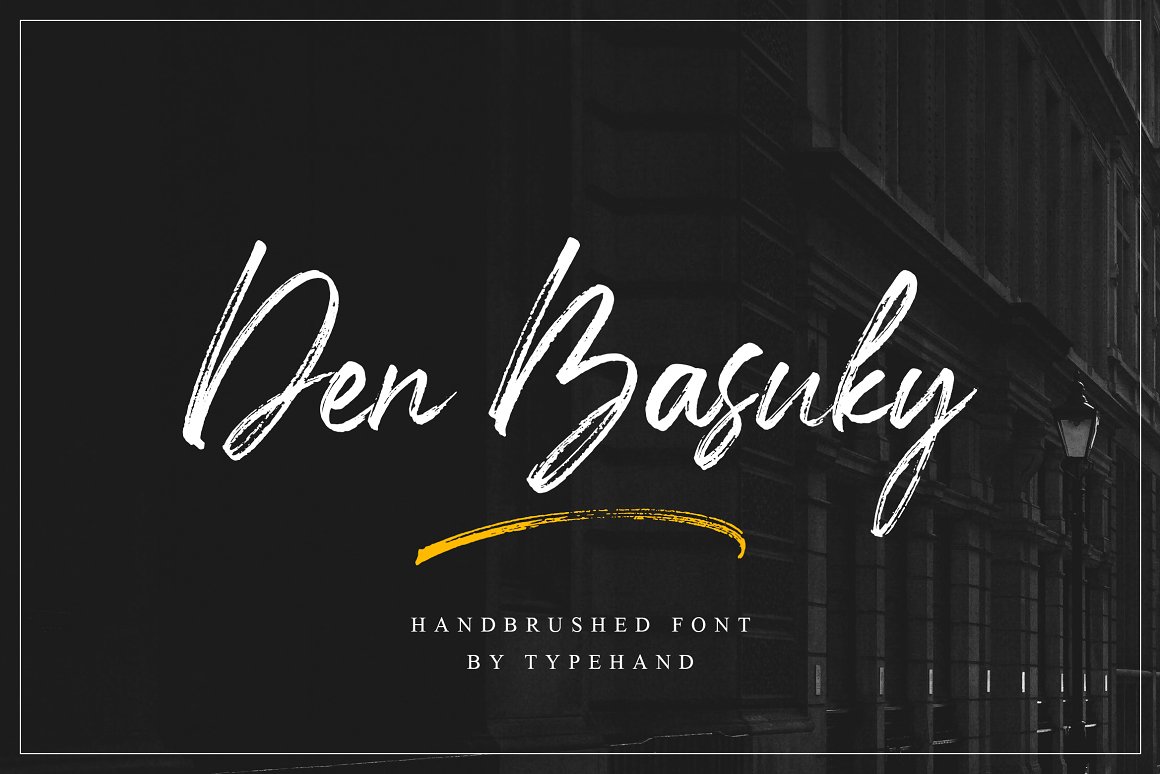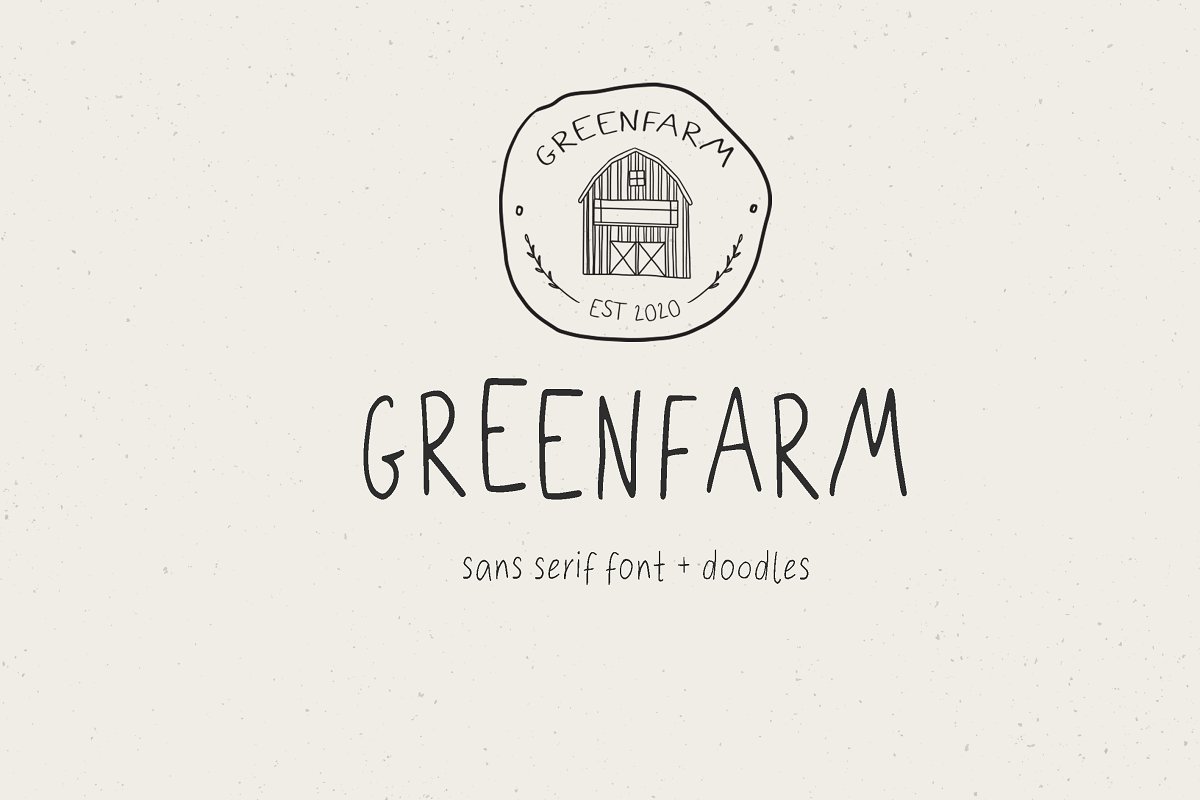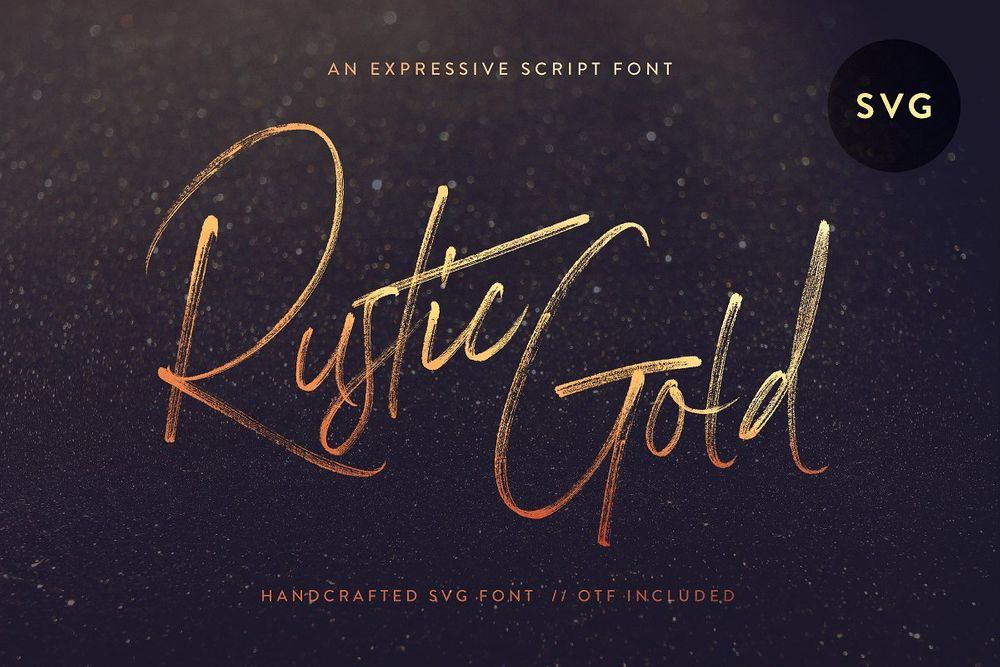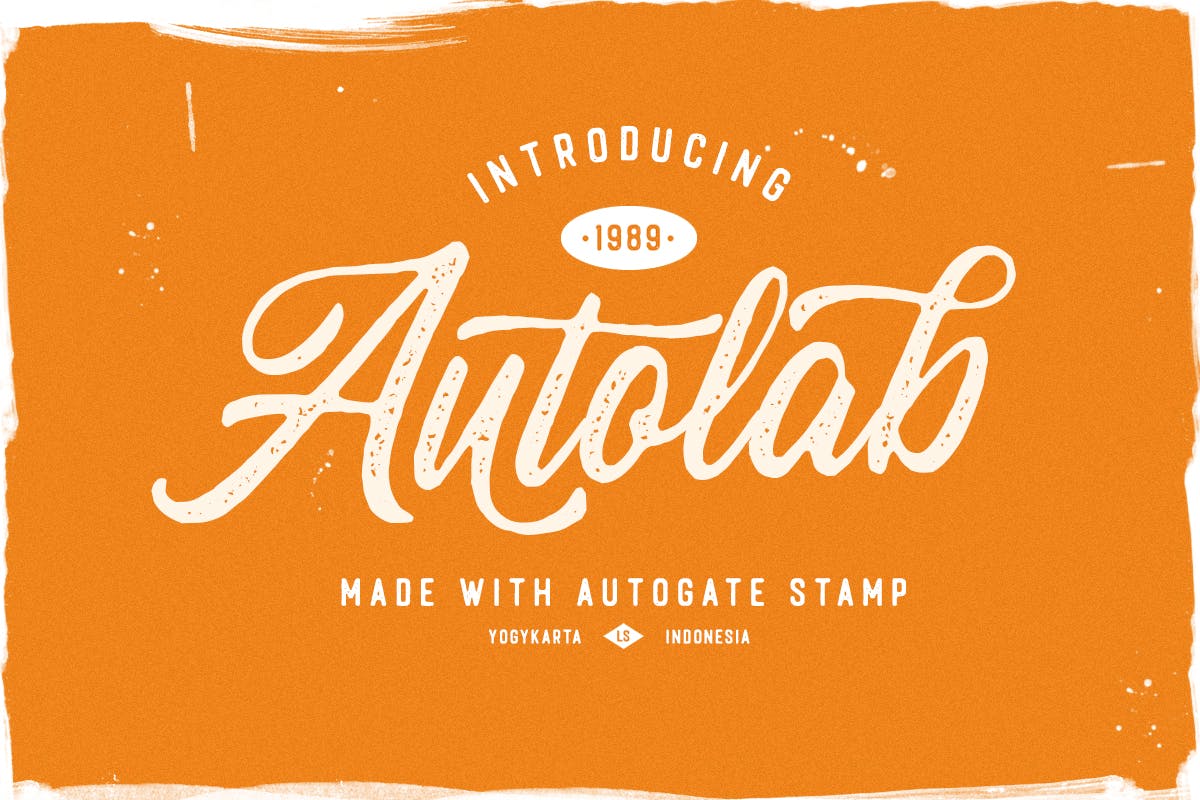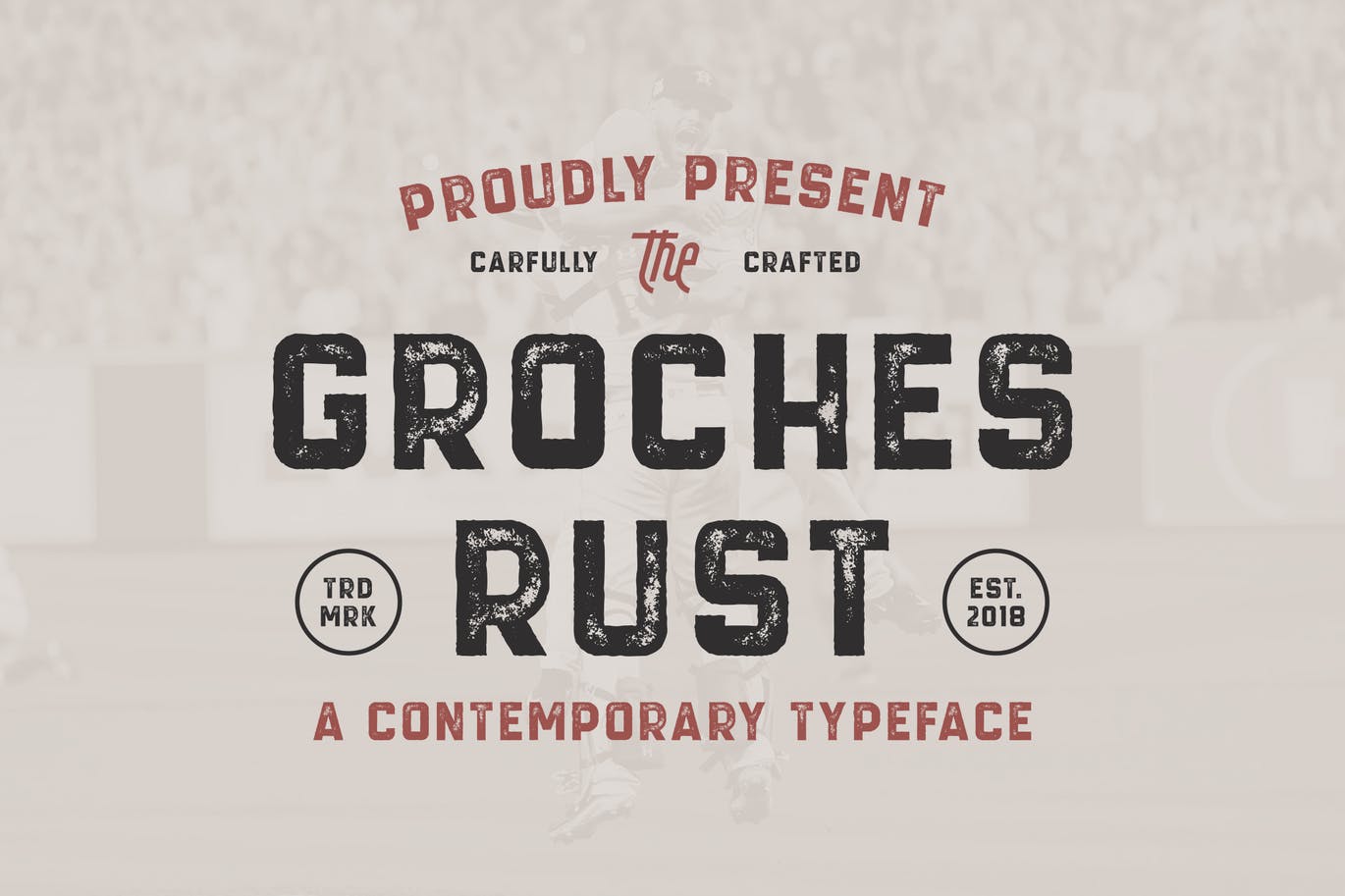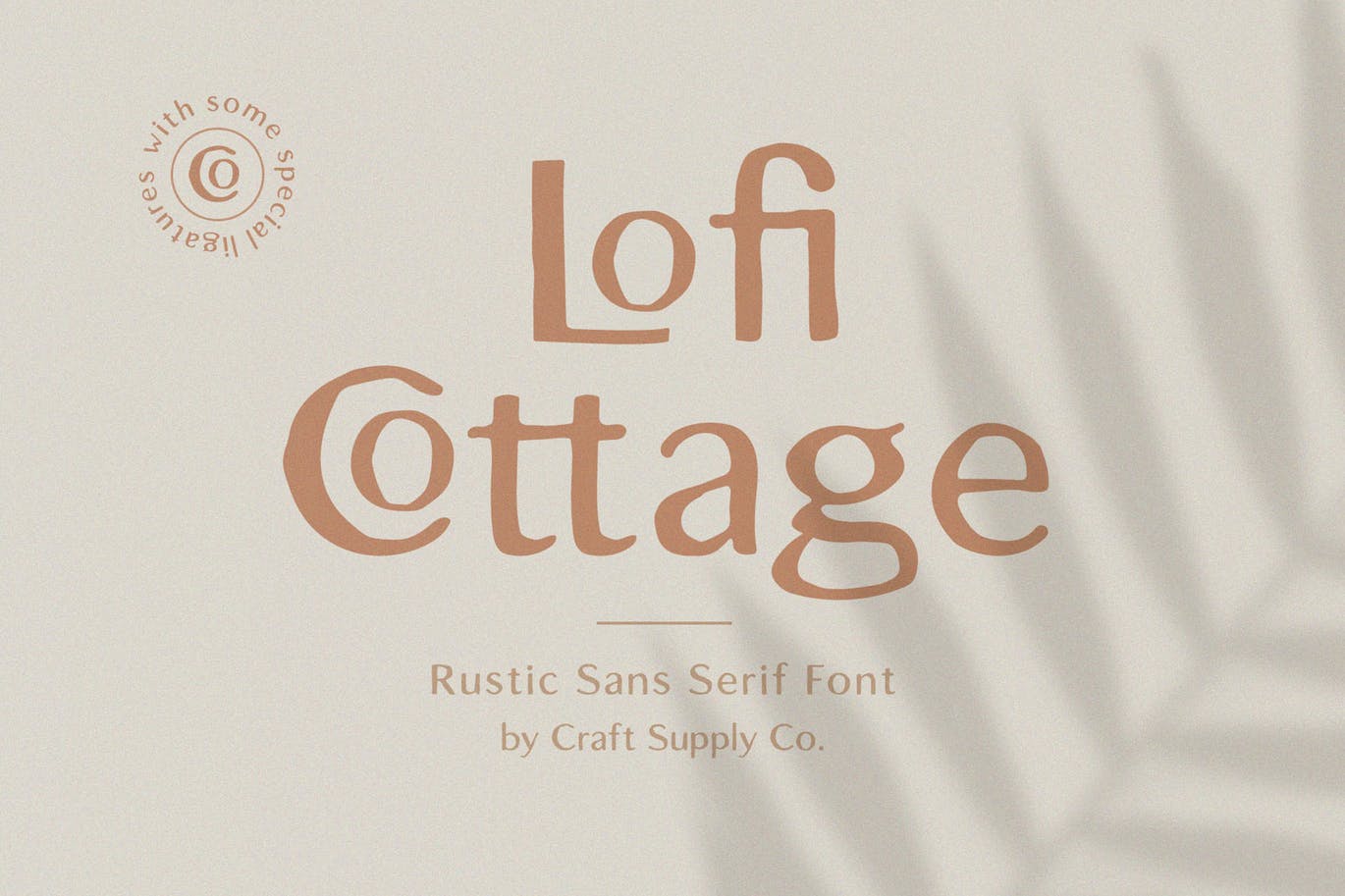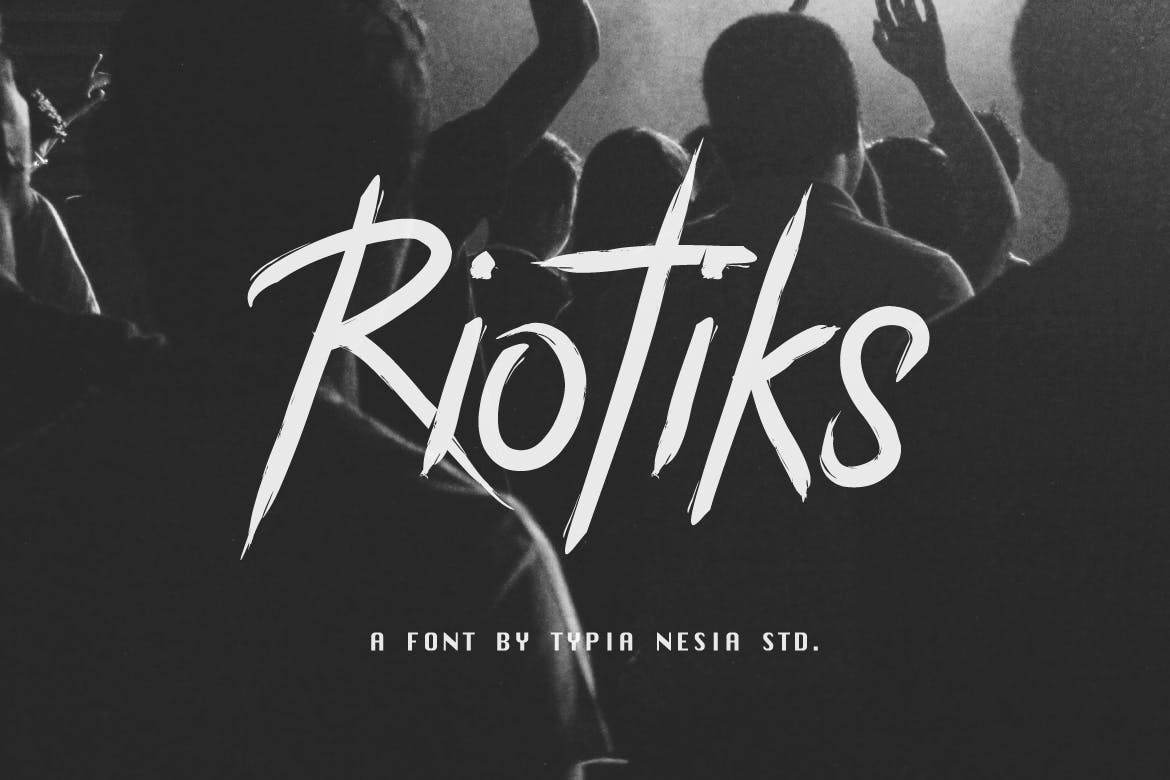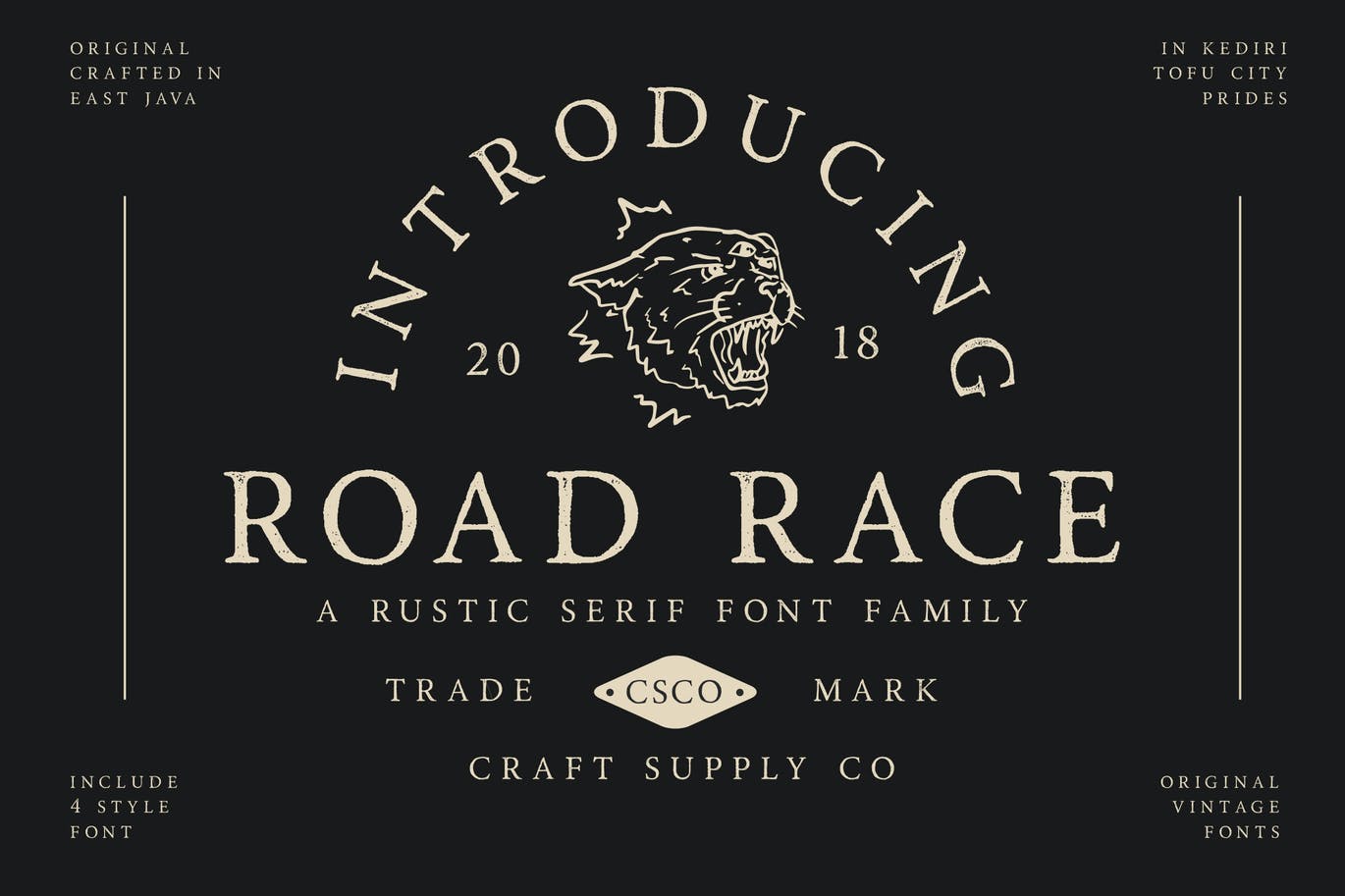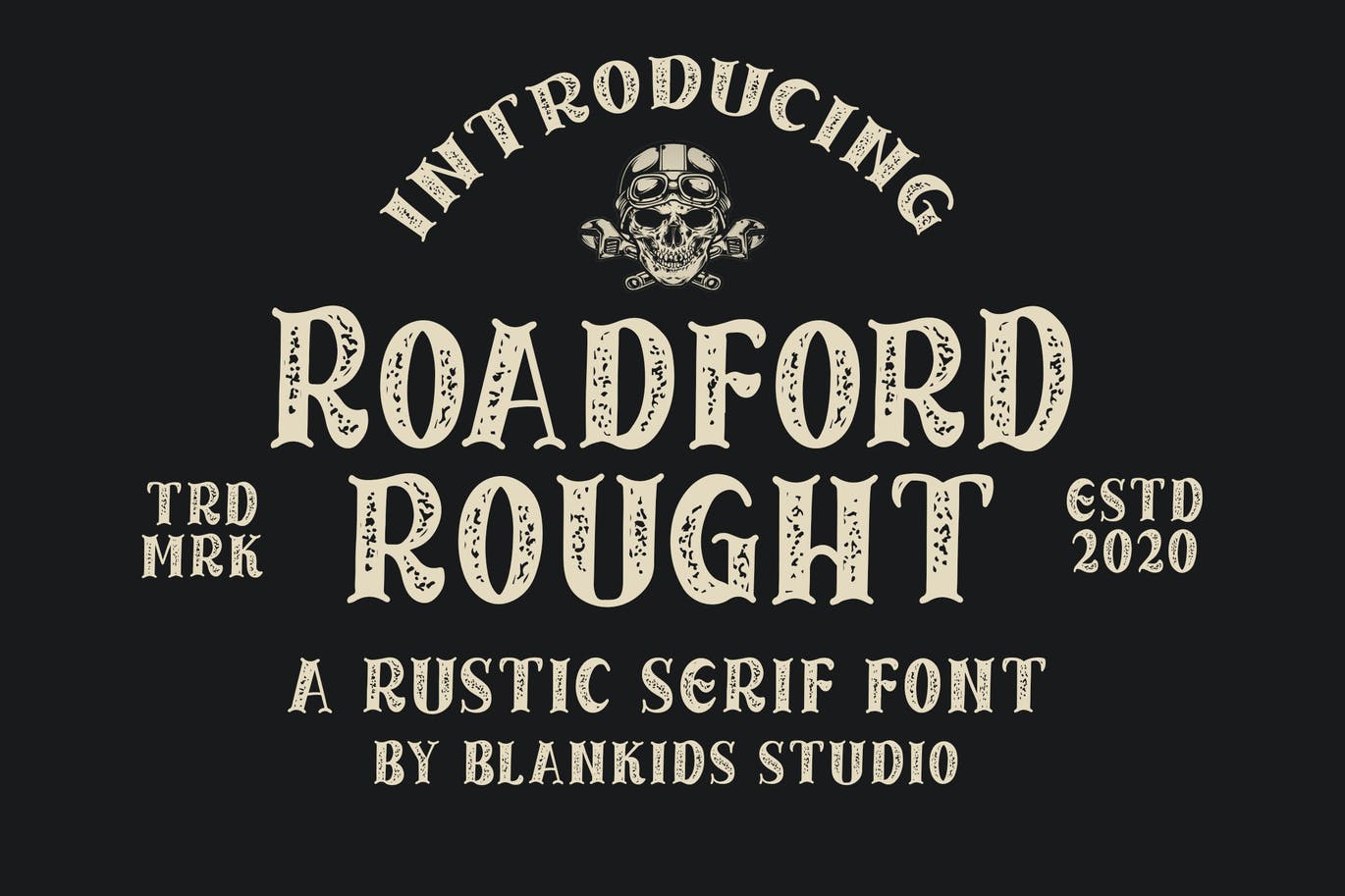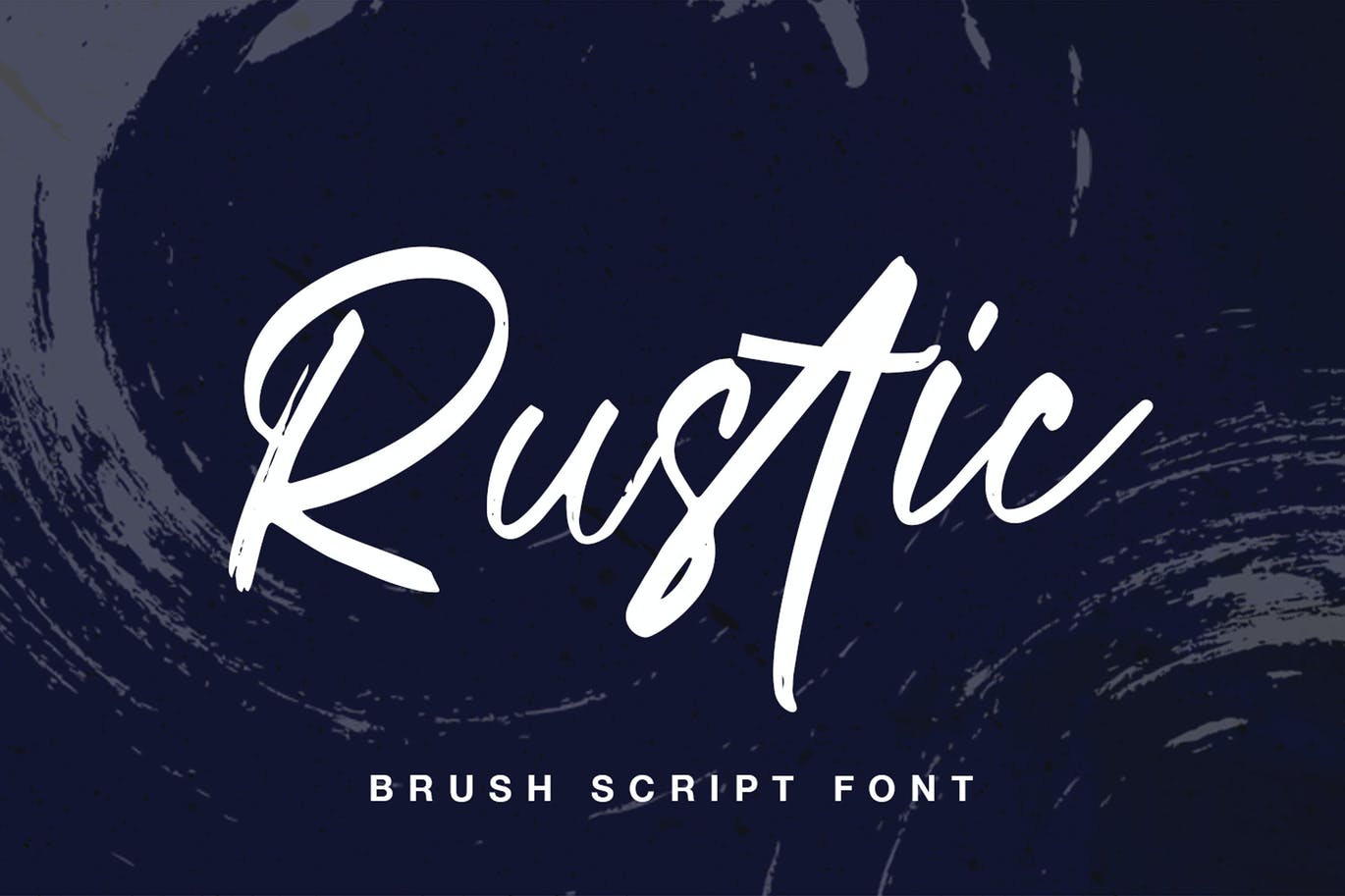
40+ Charming Rustic Fonts / Create a Vintage Styles
Typography can hep to break or create your design. Picking the proper font it can describe your message and enhance the effects.
There are thousands of fonts on the market, and that is why we have assembled this list of the most noteworthy rustic fonts which make your design stand out for decades.
What is a Rustic Font?
Rustic fonts refer to simplicity and roughness, which makes this font significantly stylistic than the regular typefaces. It is available in vintage styles to handwritten, smooth, as well as gives endless possibilities to mix and make various designs.
In this amazing post we have collected more as 40 charming rustic fonts for designers. These useful rustic fonts provide flexibility and convenience to create some stunning kind of design. So, keep a good mood and enjoy the list of fonts below.
Zing Rust Font (Free)
As its name refers Zing Rust stands for the vital freshness of your ideas and bold designs. 6 fonts are free to use.
Ad a vintage effects to your design with this cool font. It is perfect for all kind of old timers designs, postcards, lettering and etc.
Enjoy this free rough vintage font and create something special. It is perfect for all kind of vintage designs, flyers, promo materials, print and etc.
Clean and old timer font for your nice vintage design. It is perfect for labels, badges, beer design, t-shirt design, flyers and etc.
It’s your time to download this vintage font and create somthing special. It is perfect for labels, badges, beer design, t-shirt design, flyers and etc.
It is an handwritten script font based on the expression of real handwriting. The font will work perfectly for fashion, e-commerce brands, trend blogs, wedding boutiques or any business that wants to appear upscale and chic.
Its is a modern signature font. Perfect for blogging, social media, branding, product packaging, wedding invitations, branding, headlines, signage, labels, signature, book covers, posters, quotes and etc.
The font has a bit of a rough & rustic vibe , which makes it perfect for all kinds of vintage logo & branding projects.
Roadford Rought inspired by modern vintage poster. This font is a fun theme very good for poster, apparel, badge, label, emblem and etc.
Vintage brush font for your designs. Perfect for quotes, logos, heading, titles, flyers and etc.
Just use your imagination and your project will become more alive and look great than ever with this font. It can be used to create almost all types of design projects like print materials, logos, flyers, greeting cards, letterings, headings and etc.
Rain Fall is a new rustic typeface and is very best choice for quotes, posters, logos, print ads, digital ads, promotion product, video bumper and etc.
Its is a Rock Punk brushed font with the rustic brush effect. It suitable for logo, branding, t-shirt, poster, packaging, book cover, hipster design, cards, and any brush lettering needs and etc.
It is a rustic font suitable for designs that require a vintage and classic feel to be applied to logos, posters, screen printing, design labels and etc. This font include 2 style.
Comes in two different styles, clean and rusty it brings a vintage touch to any creative project. Groches very suitable to use for headlines, sign, display, and logotype.
Create a vintage rough effect for your design project. Perfect for all kind of old designs, labels, posters, flyers, headings and etc.
The natural and rustic feel is really perfect for you who needs a typeface for especially logotype, apparel, invitation, branding, packaging, advertising and etc.
It is a rustic all-caps font that embodies the ruggedness of nature. The organic, handmade letters are reminiscent of old hiking signs or a pioneer cabin. Perfect for posters, flyers, vintage postcards, packaging and etc.
A rough and rustic script typeface with swashes. This item is really perfect for you who needs a typeface for especially logotype, apparel, invitation, branding, packaging, advertising and etc.
It is a wild concept vintage font with 9 different styles. Make your best design with this font for any purpose, such as t-shirts, logos, poster designs, magazines, signs, and etc.
It is created from scratch brush, feel the rustic brush from this font. Perfect for branding project, homeware, product packaging, tees design or just simply as a stylish text overlay to any background image.